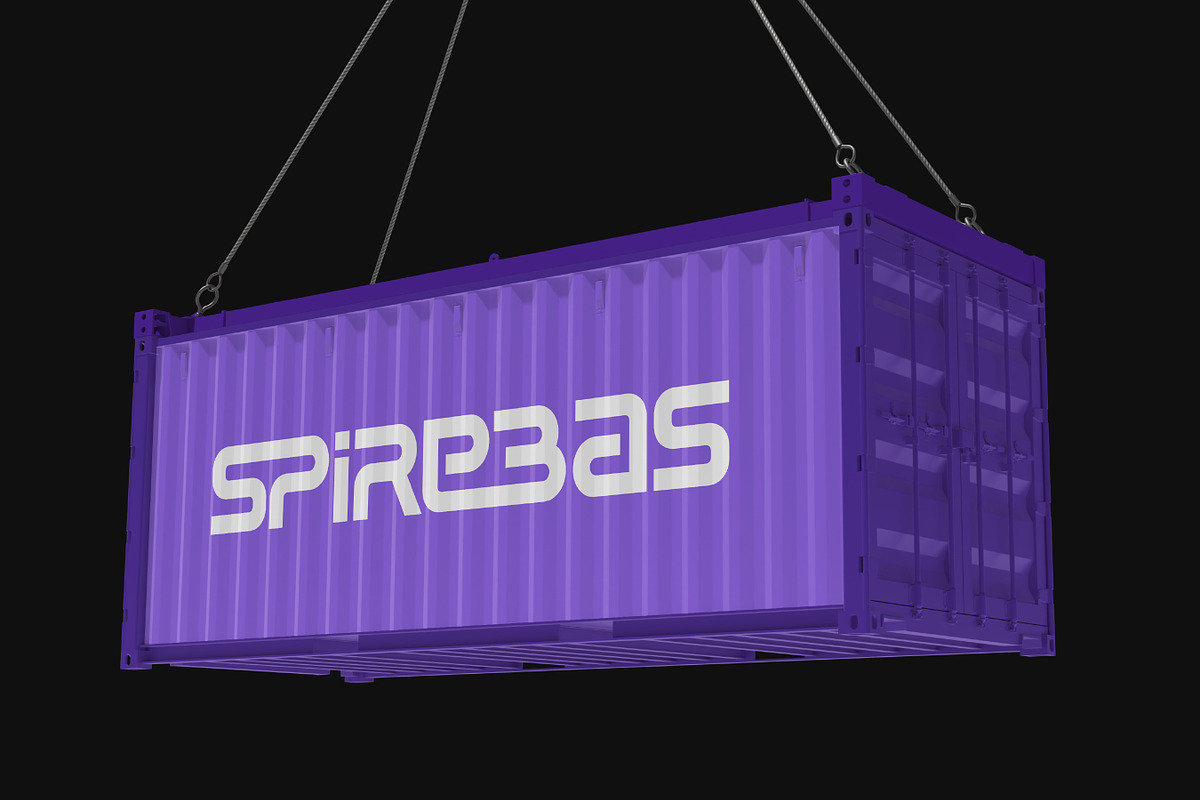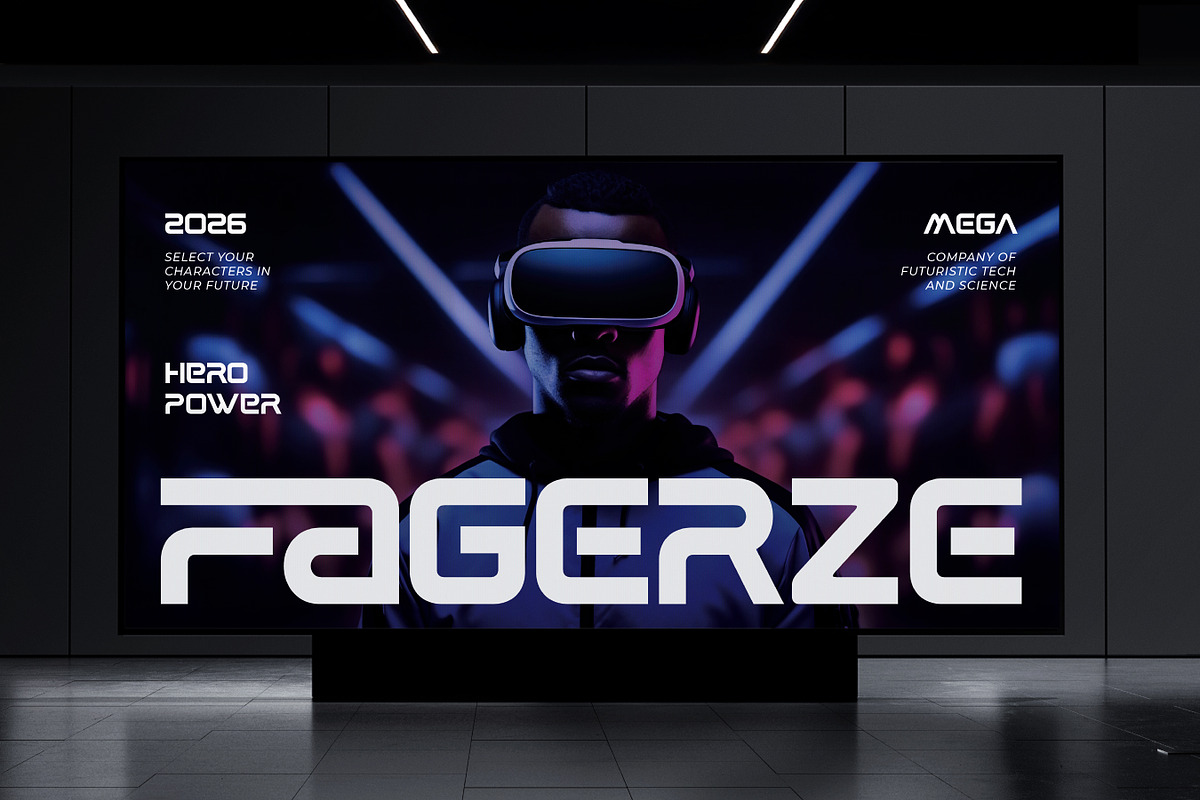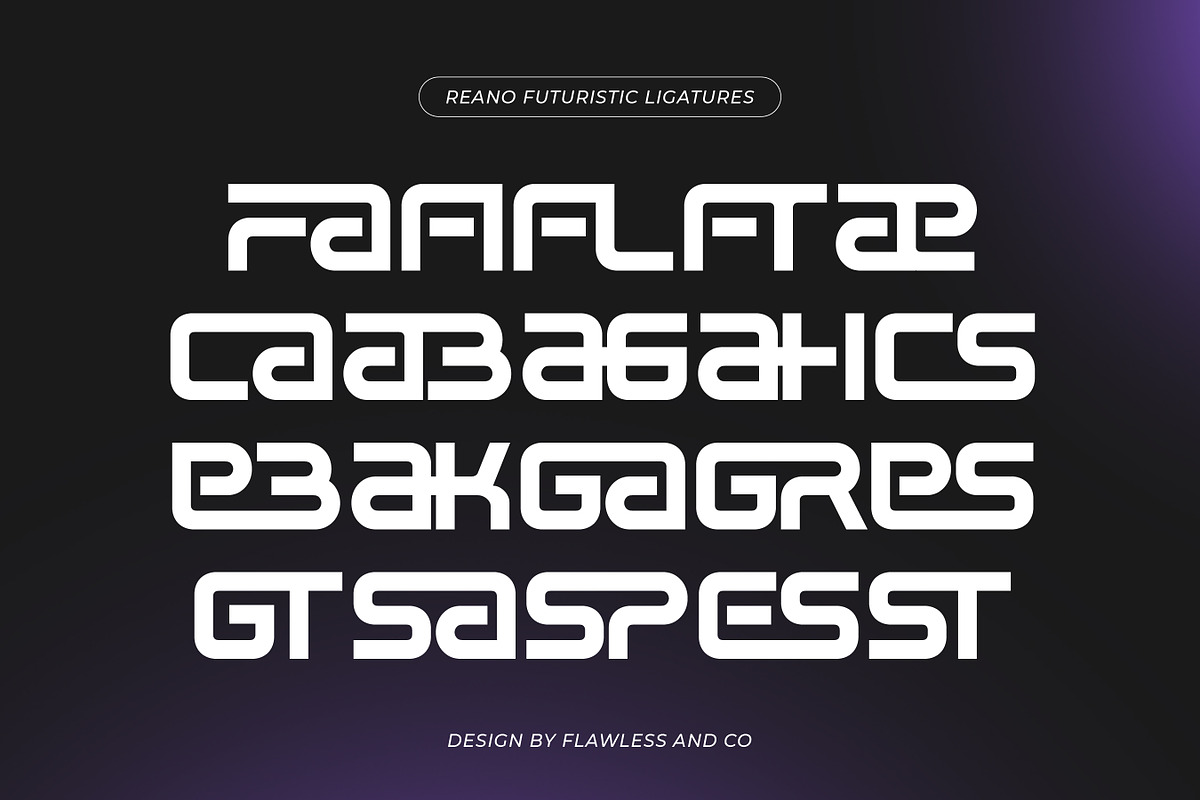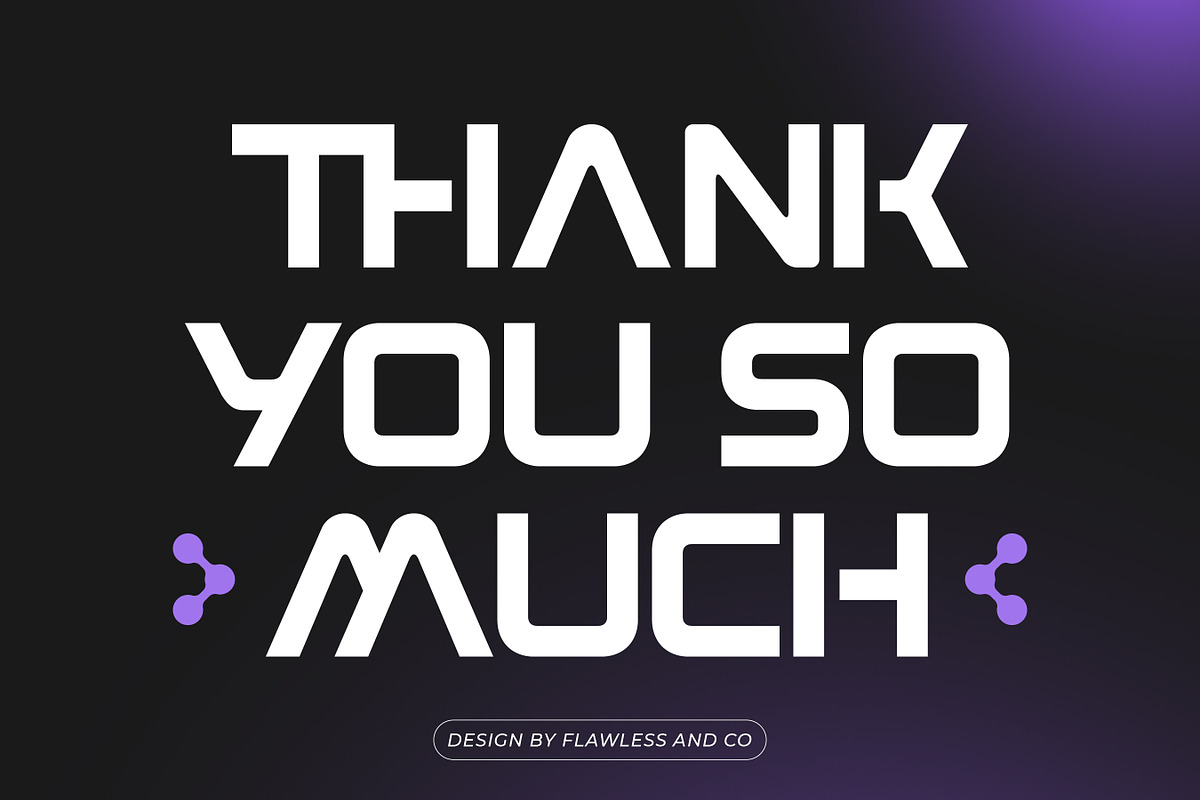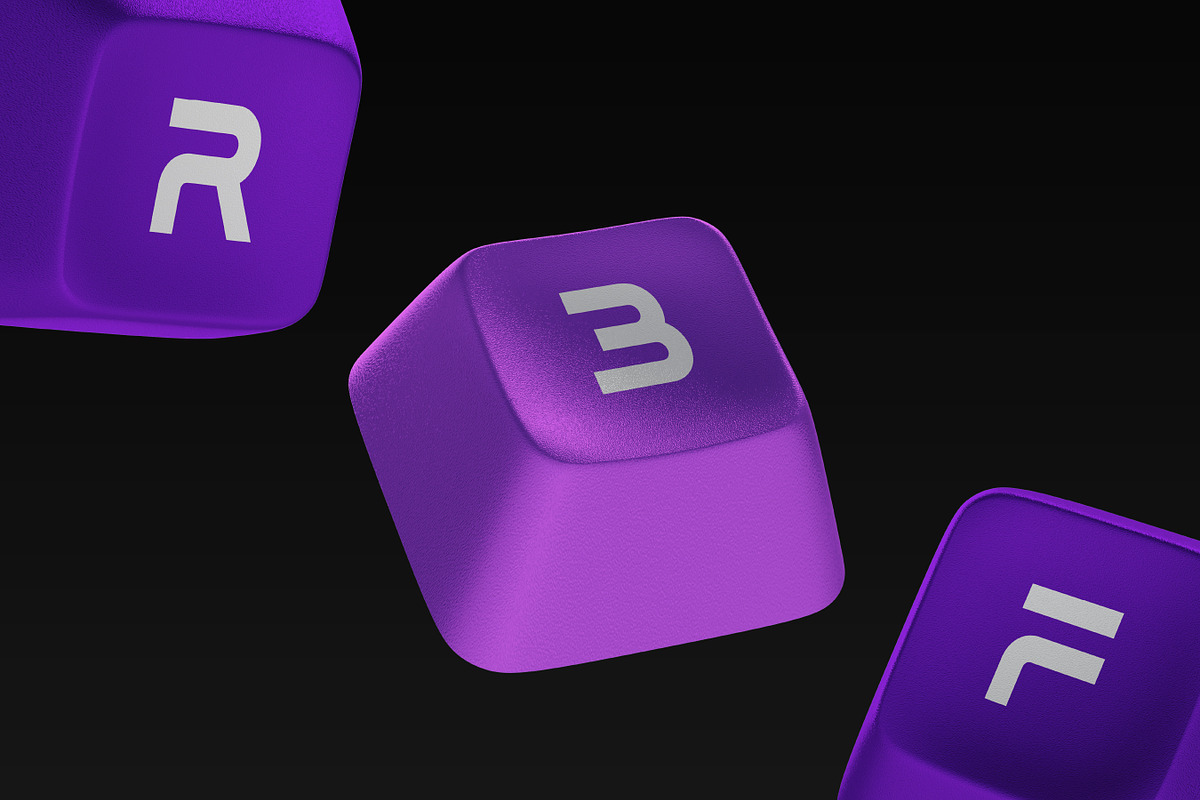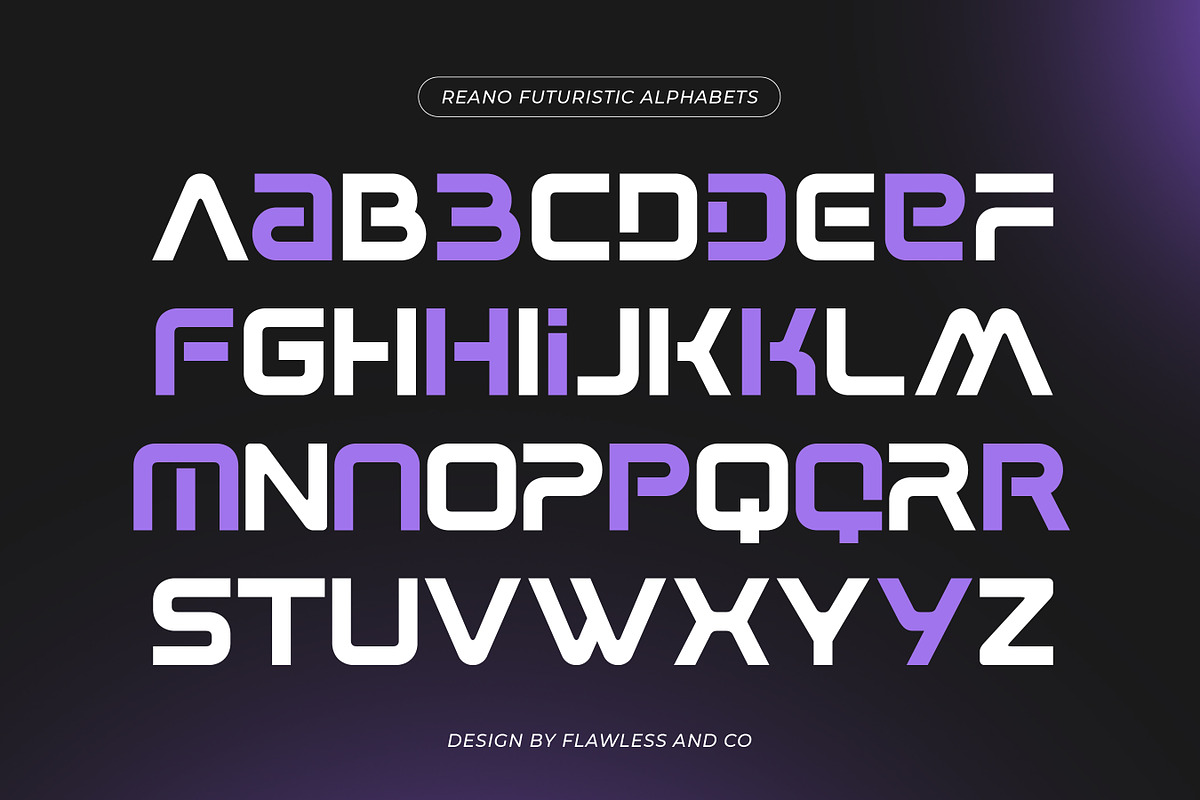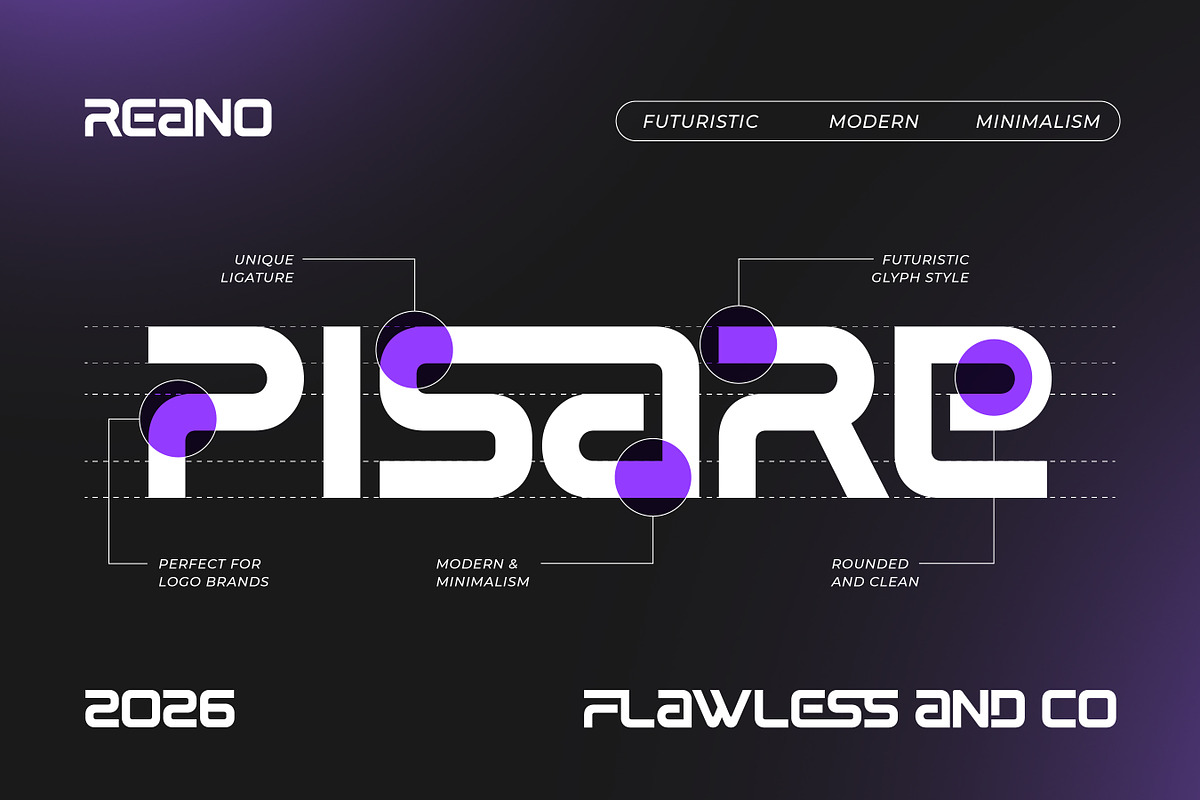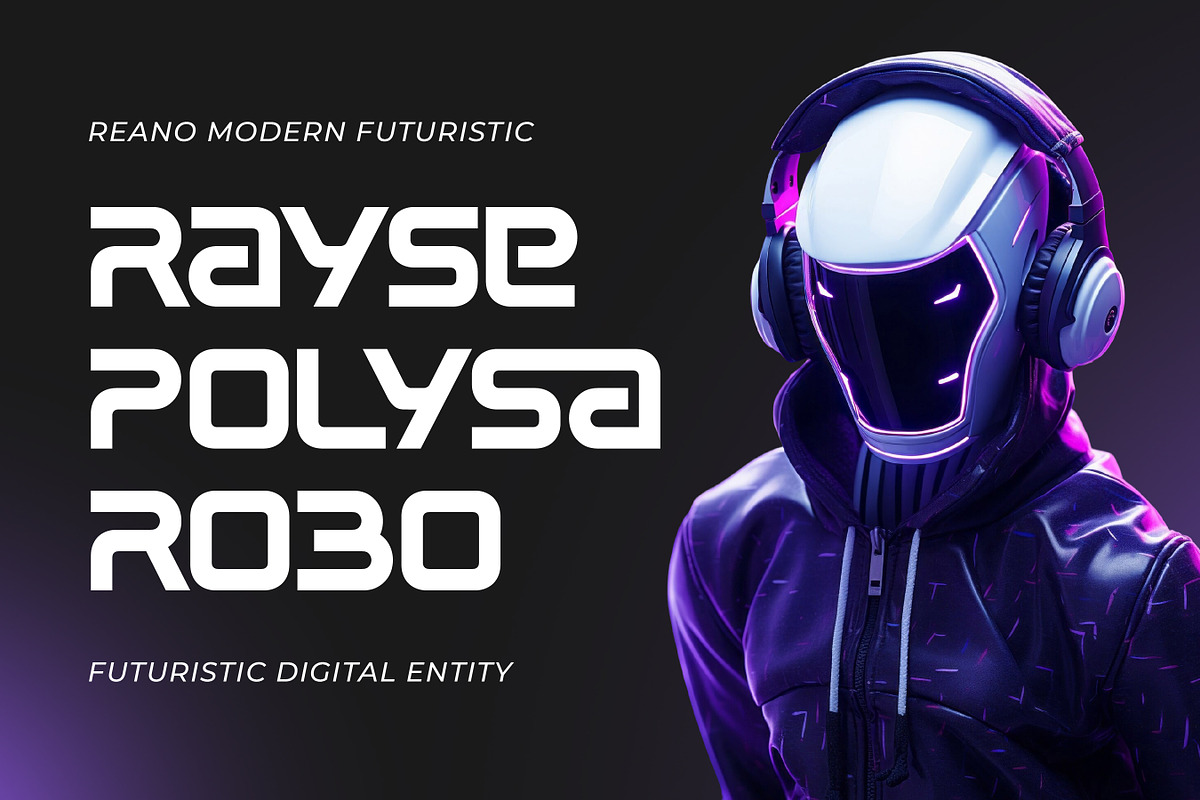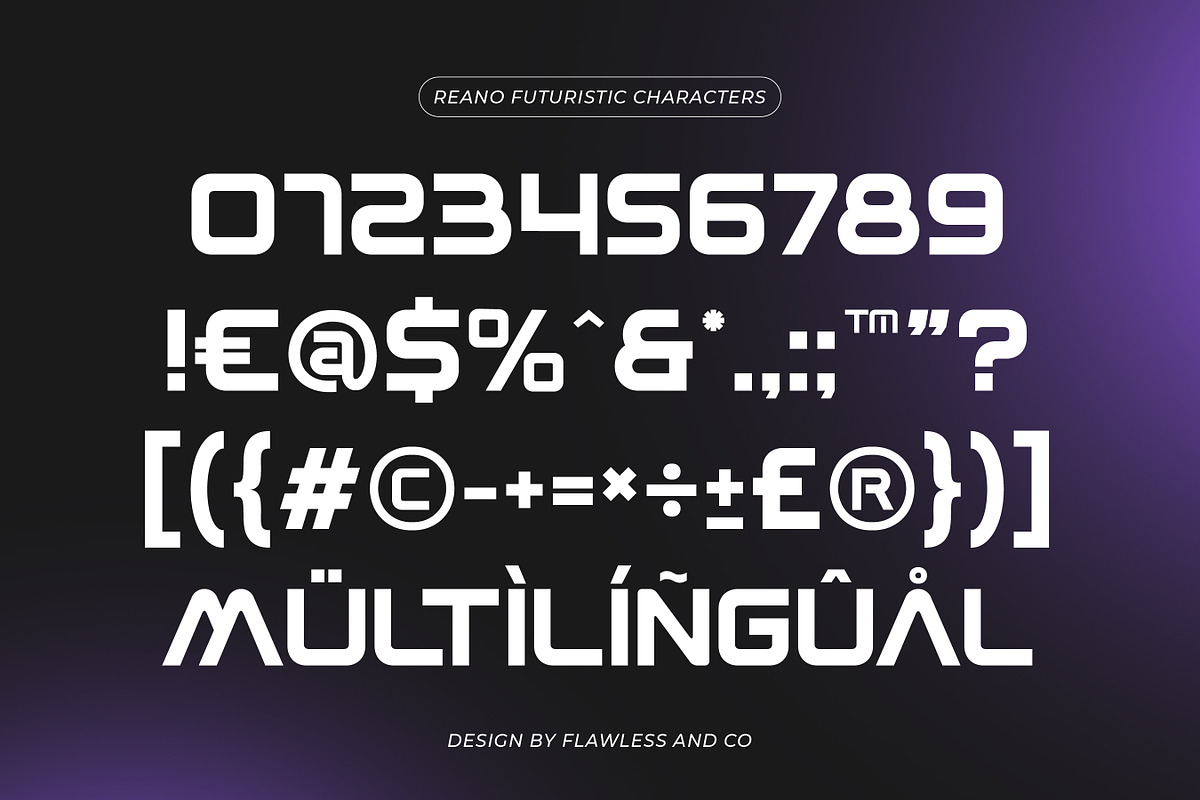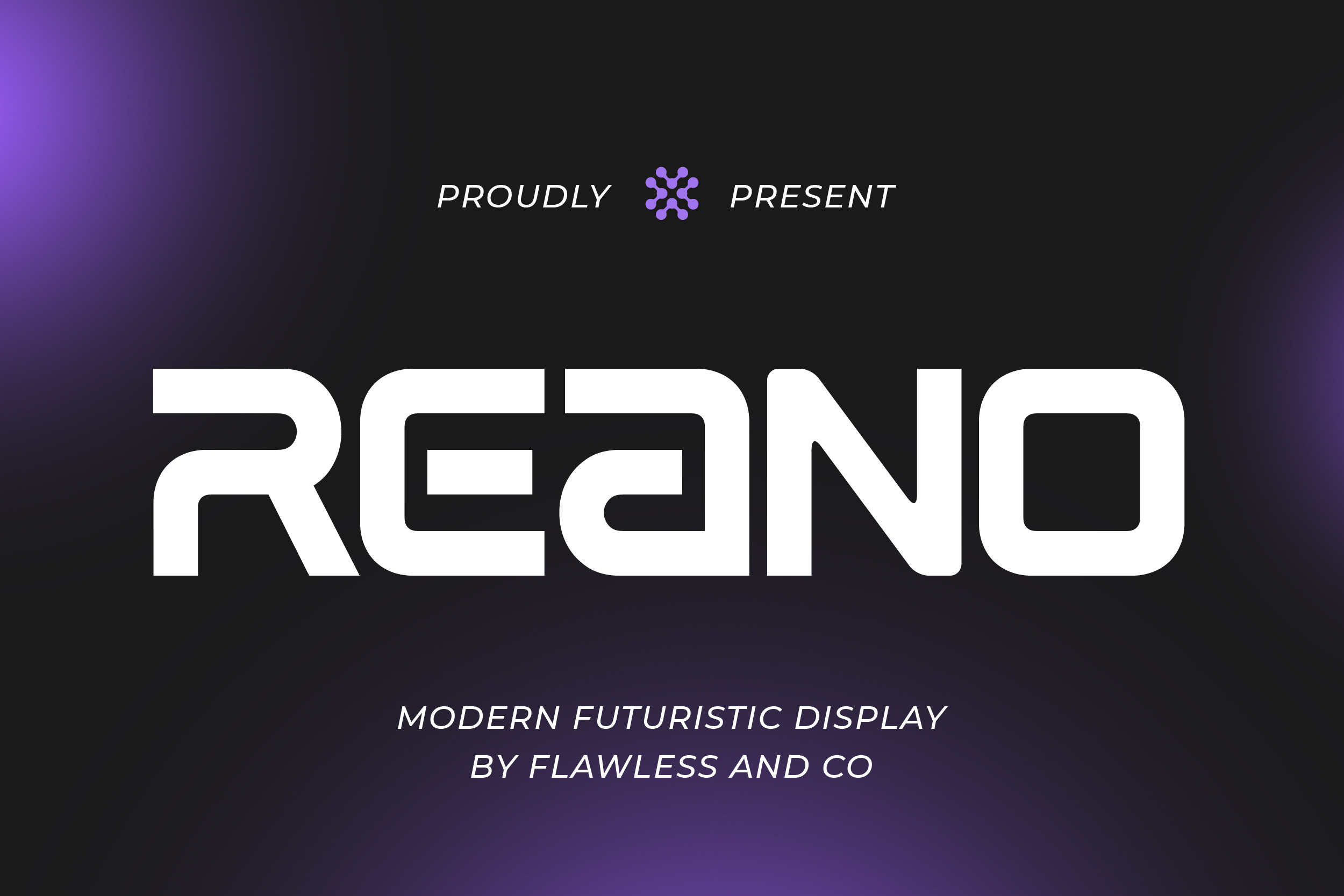
Reano - Futuristic Display Font
Reano - Modern Futuristic Display Font
Reano is a striking modern futuristic display typeface crafted to deliver a clean, high-tech, and forward-looking visual style. Its precise geometric shapes and sharp edges create a strong digital aesthetic that instantly captures attention. Designed to stand out, Reano works perfectly for bold headlines and modern branding that demand a sleek and innovative feel. Whether used in tech-related designs or creative visual projects, this font brings a refined futuristic vibe that feels both powerful and contemporary.
Who Should Use Reano?
Reano is ideal for designers and creators who want to express innovation, technology, and modernity through typography. It’s especially suited for projects that require a futuristic tone, such as digital brands, gaming visuals, and cutting-edge creative work.
Suitable For:
- Technology and digital branding
- Gaming and esports visuals
- Futuristic and sci-fi themes
- Modern logo design
- UI/UX and app design assets
- Poster and advertising design
- Social media content
- Bold headline typography